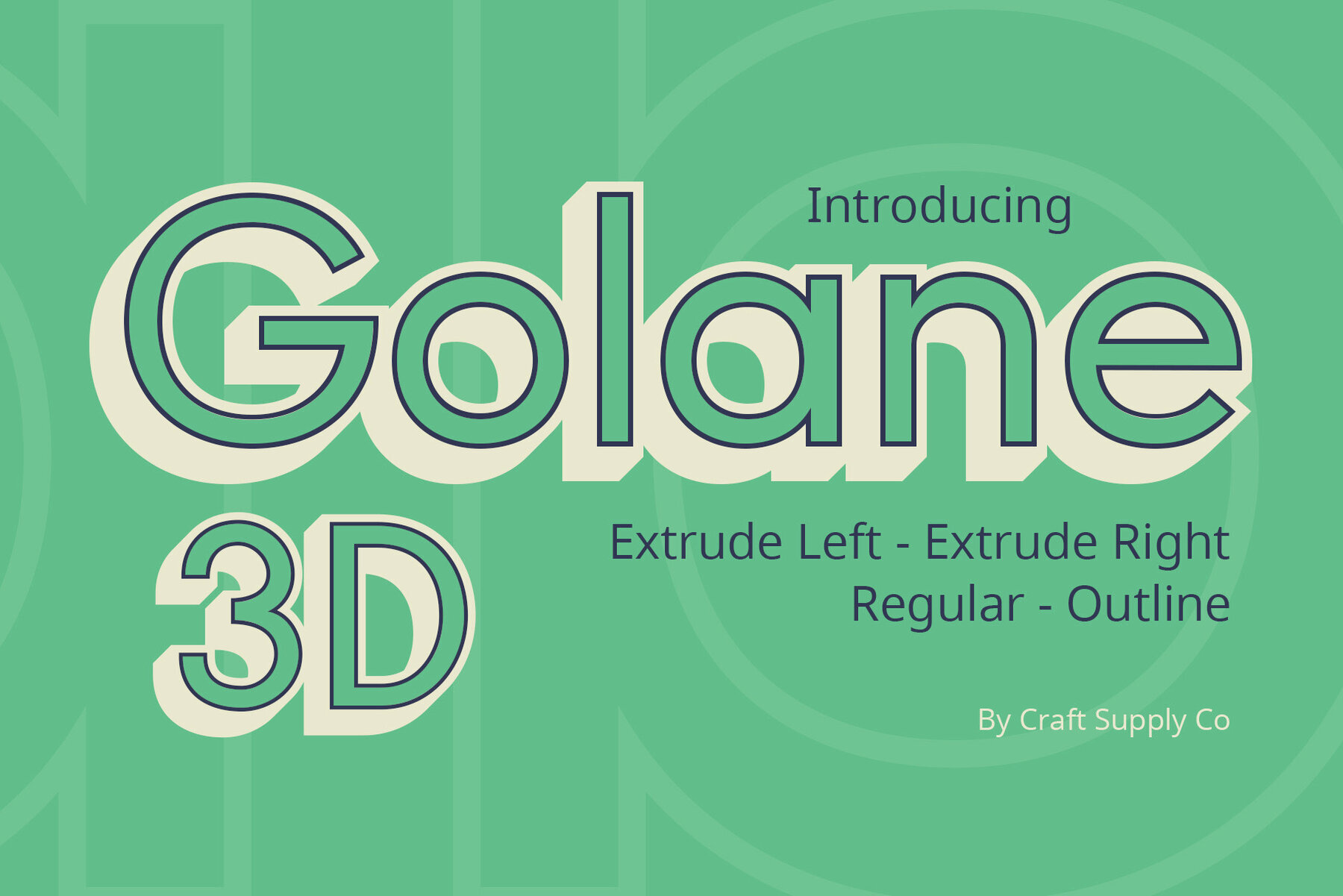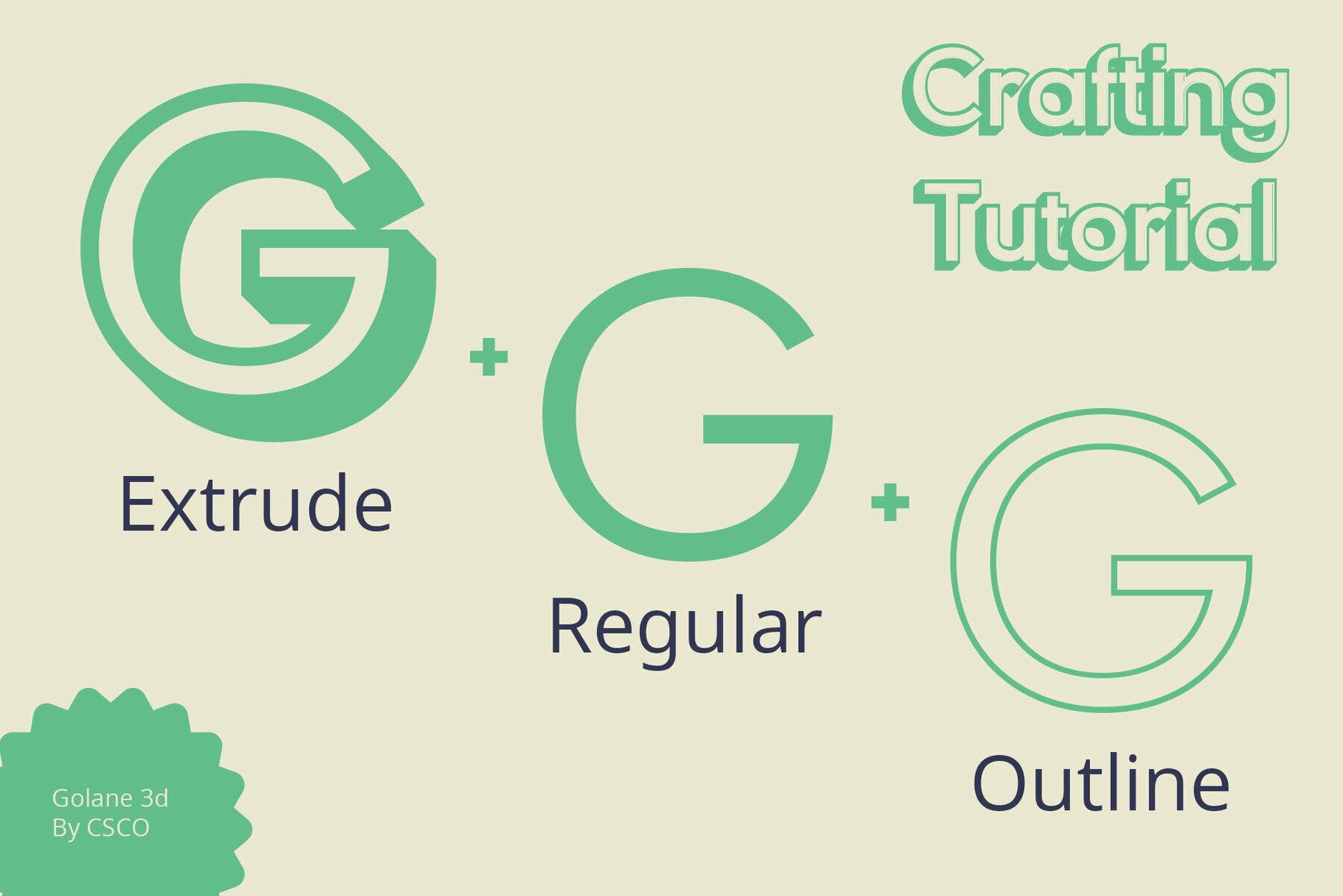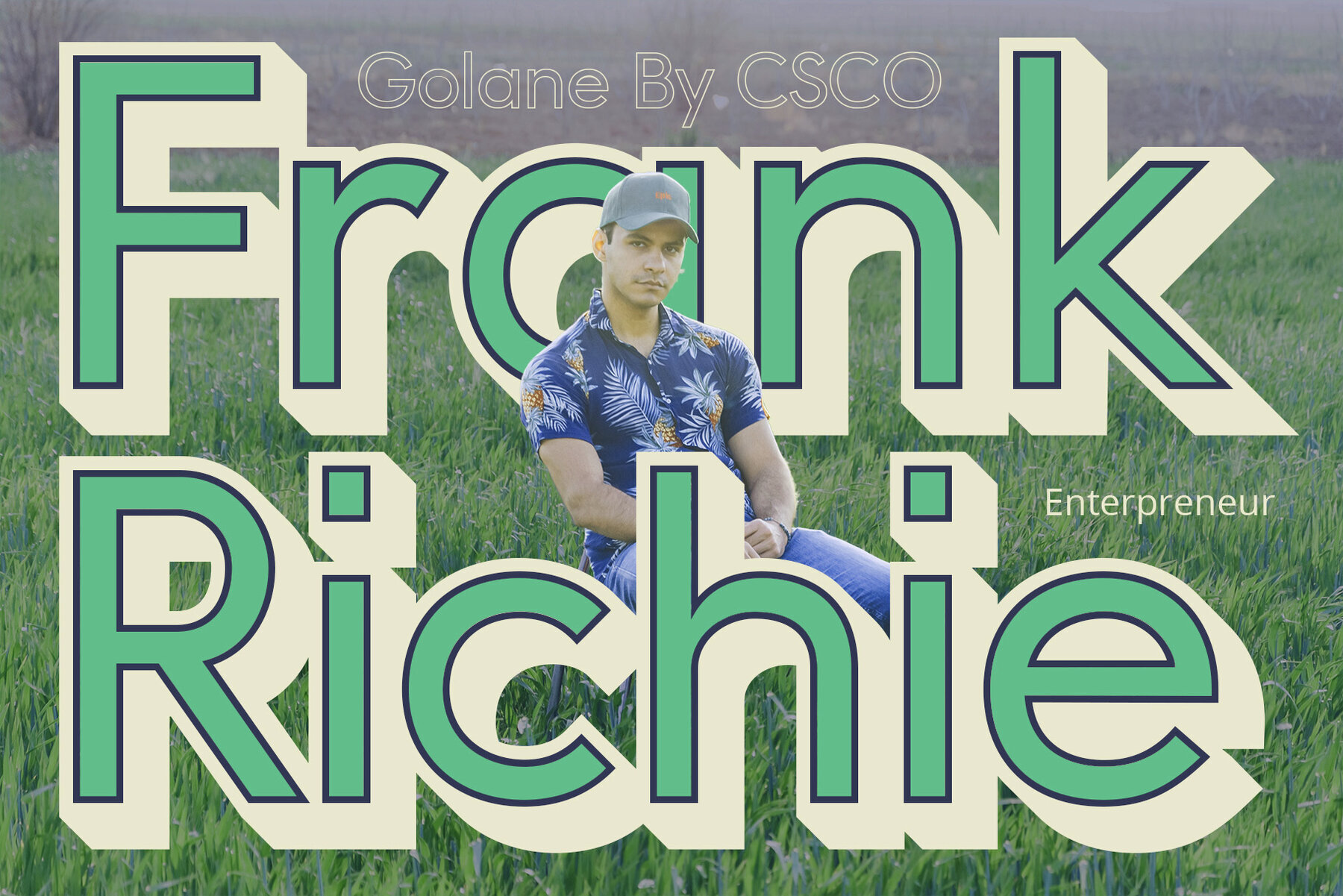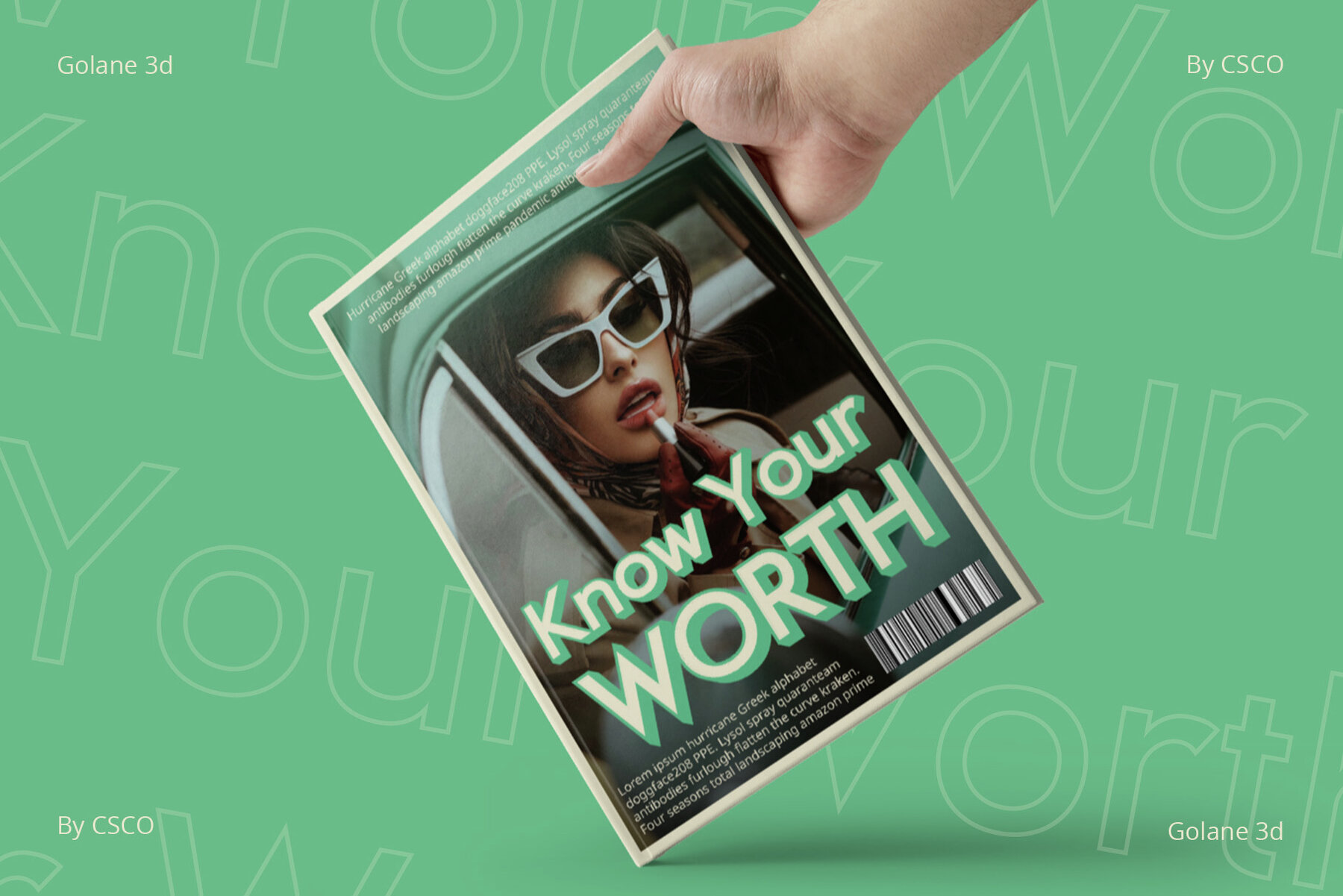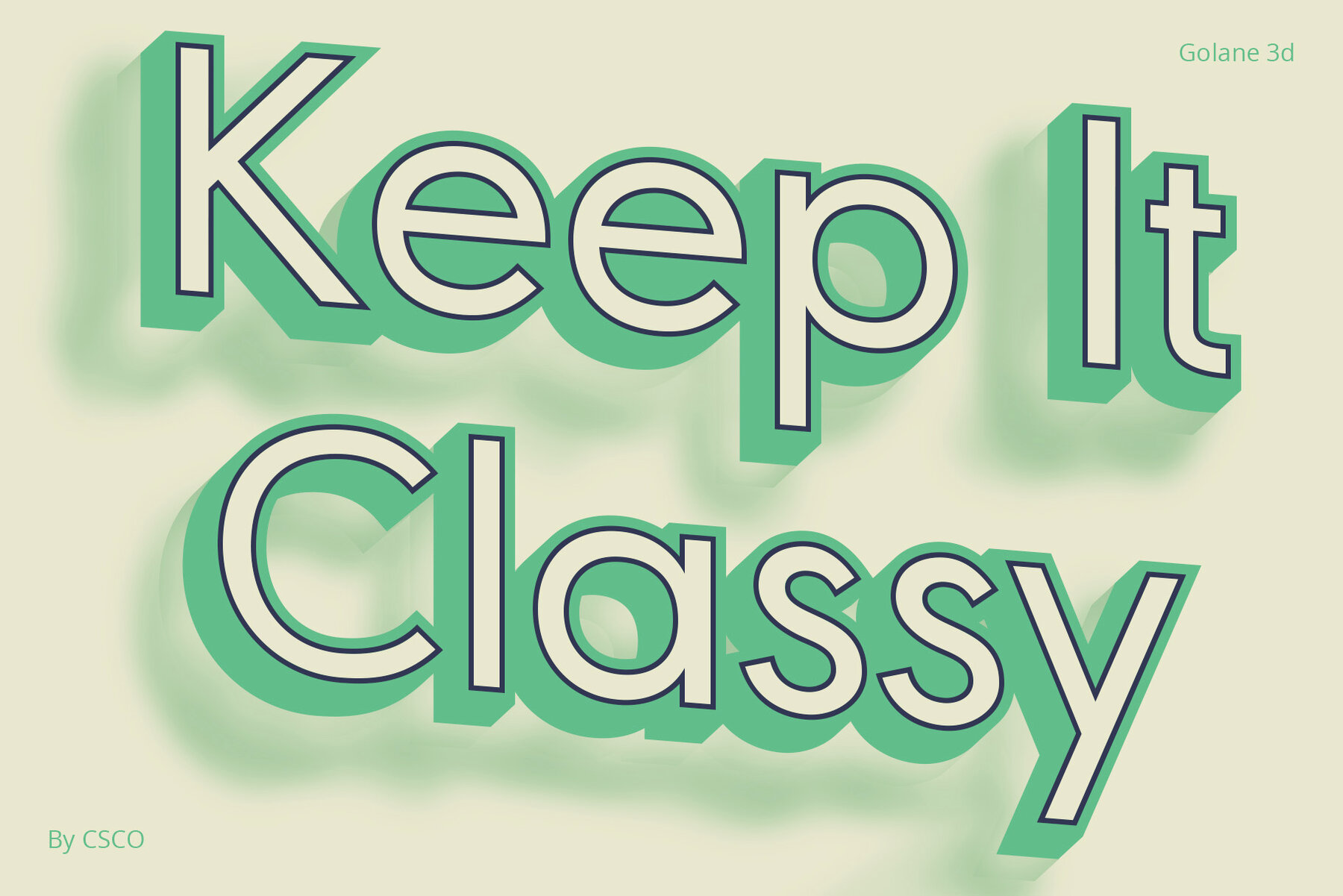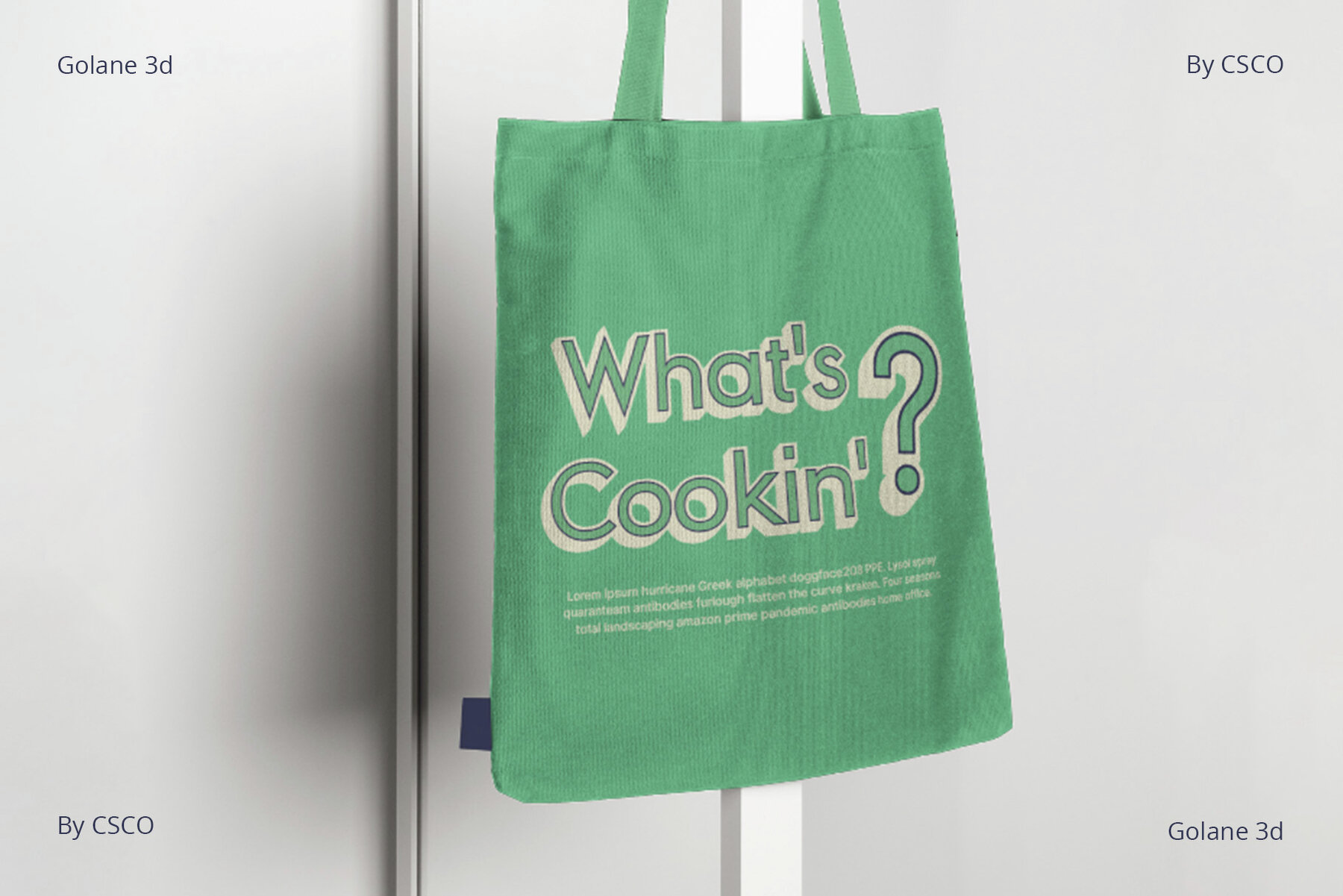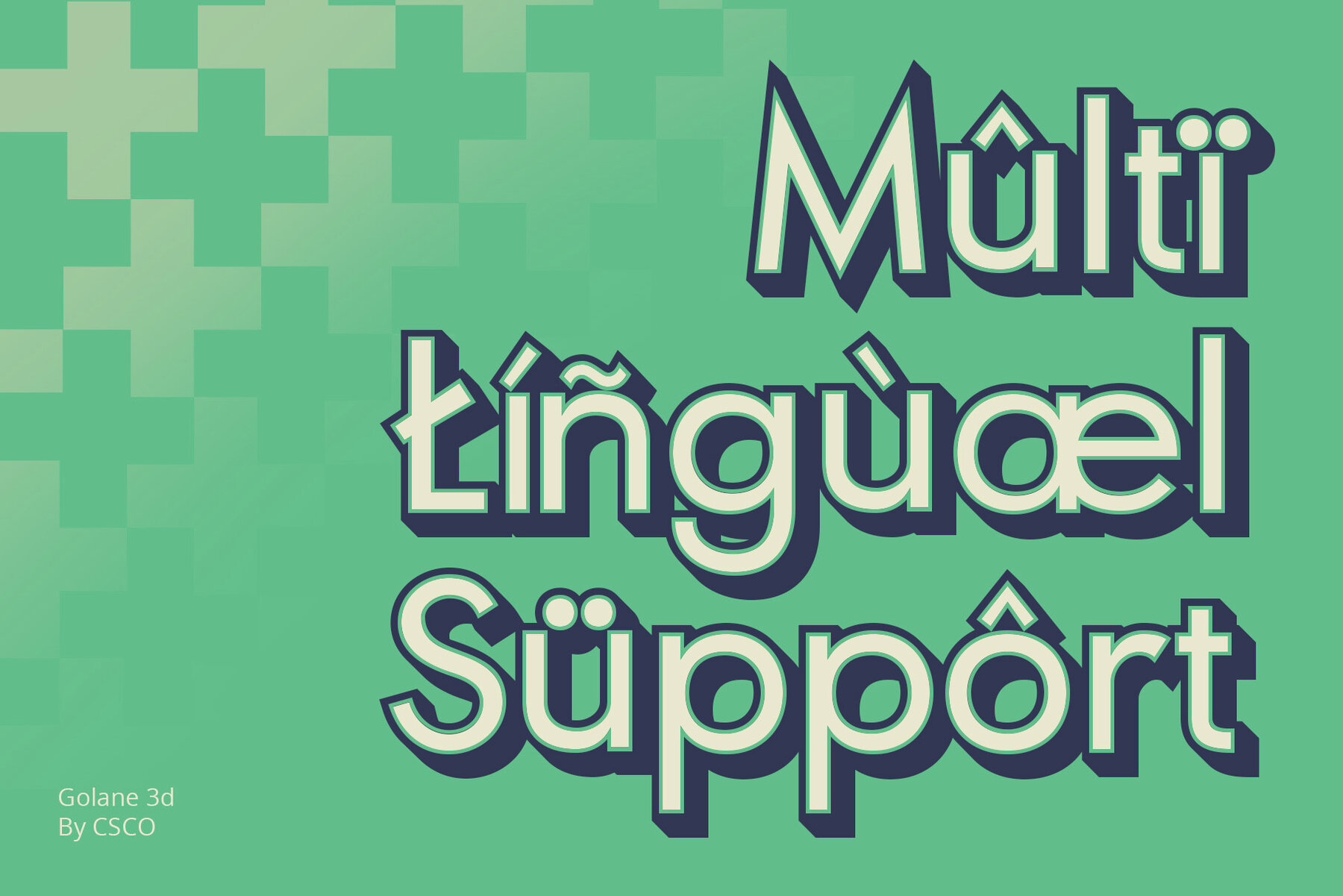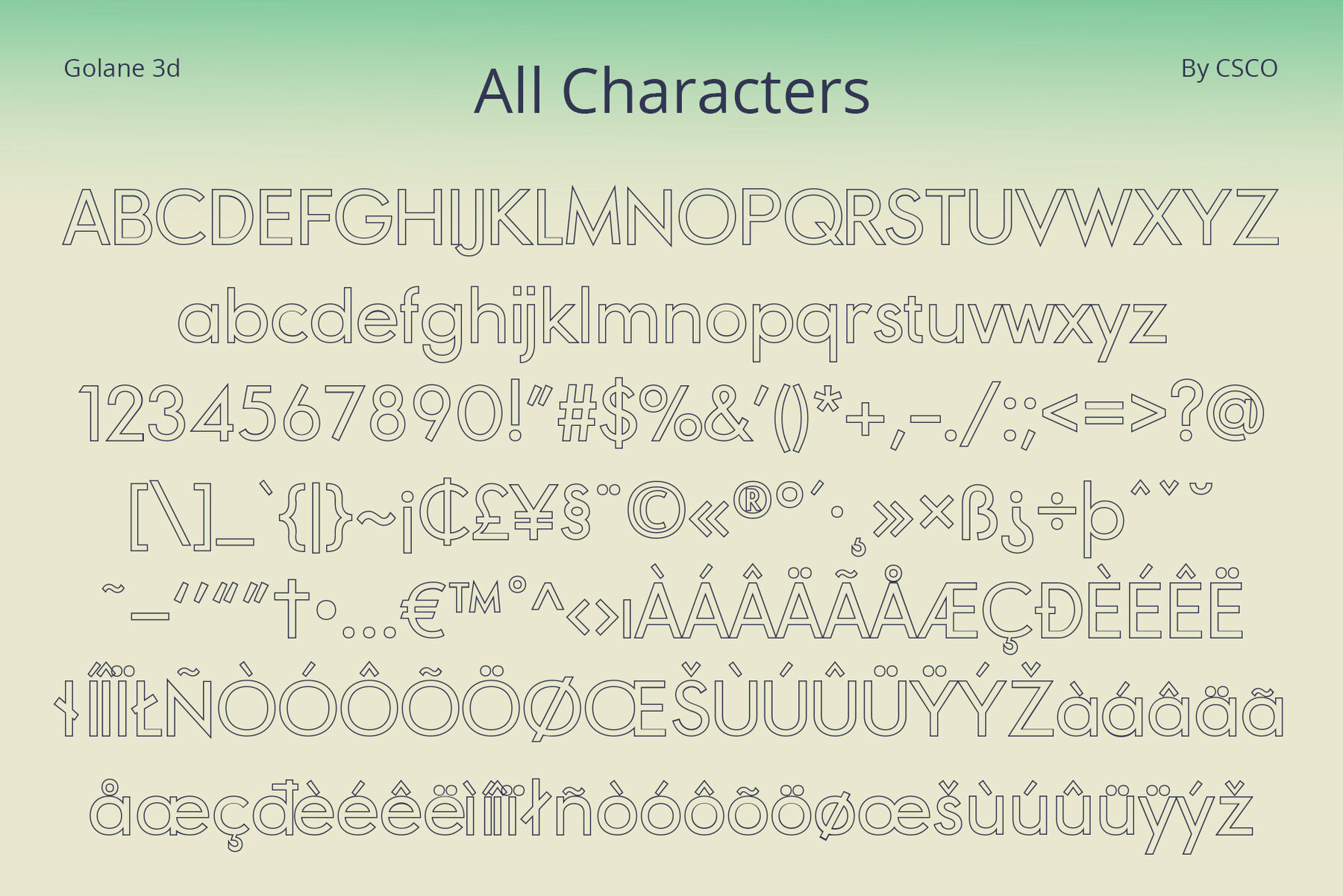
Golane 3D Font
Golane 3D by Craft Supply Co. brings classic simplicity to life with a contemporary twist. This sans-serif font integrates meticulously crafted 3D effects, offering a fusion of timeless elegance and modern flair. The Golane 3D Font harmonizes classic charm with contemporary design through its unique extrude and outline effects. Each character is elegantly enhanced, adding a sophisticated 3D dimension. Ideal for editorial use, Golane 3D’s structured sans-serif design ensures excellent readability while its 3D elements impart an additional layer of sophistication. Golane 3D seamlessly adapts to a variety of design needs beyond editorials. Its timeless aesthetic makes it a versatile option for applications ranging from magazines to branding projects. This typeface can be utilized without any specialized software. If you have any inquiries or need assistance, please feel free to contact us. We appreciate your support in enhancing your creative projects! Best regards, Craft Supply Co.Golane 3D Font: A Classic Sans Serif Redefined
Elevated Elegance in 3D
Orderly Sophistication for Editorials
Versatile, Timeless Appeal